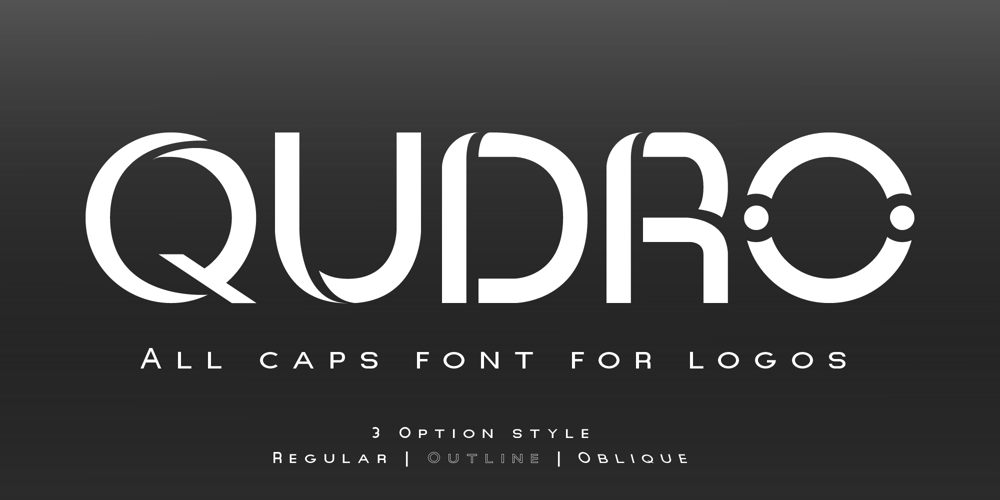
Qudro
Qudro font
Qudro Font Family was designed by Irfan Hidayat and published by Creative17studio. Qudro contains 3 styles and family package options. Qudro is a new font aimed at minimalist logo projects. Besides, this font is also suitable for other design projects such as movie titles, branding, taglines etc. Use alternative letters from this font to make your logo / design more attractive.Qudro contains:– Standard character font– Numeral & punctuation– Alternate each letter character standard– Supports multi languagesQudro has 3 styles: Regular, Outline, and ObliqueMake this font has many options in its use according to the design project you need. To access additional characters, you can use major editing software (example: Illustrator) and find it in the glyph menu, or it can be in the character-map setting (Windows) / character viewer (Mac).